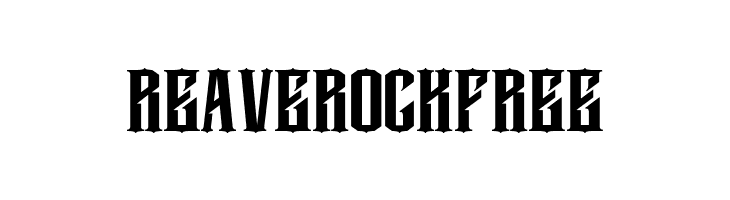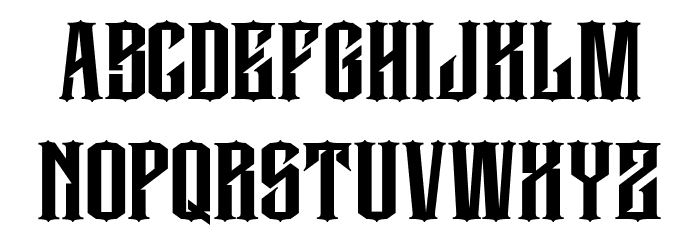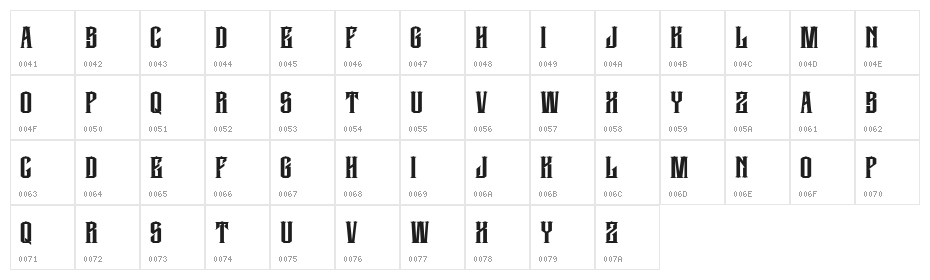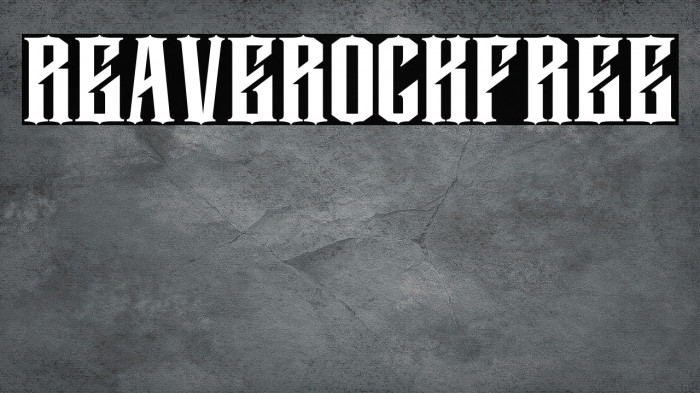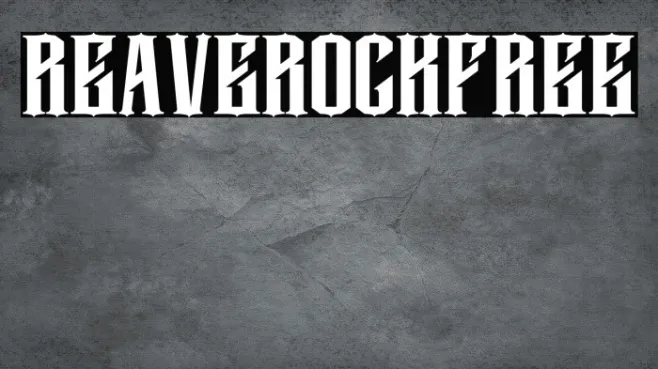
Reaverockfree Font
Reaverockfree Description
This font features a bold and striking design with sharp, angular edges and a distinct Gothic influence. The characters are tall and narrow, with a strong vertical emphasis that gives them a commanding presence. The intricate detailing within each letter adds a sense of complexity and depth, making it ideal for projects that require a dramatic and impactful visual style. The font's unique aesthetic is reminiscent of medieval script, yet it maintains a modern edge that makes it versatile for various design applications.